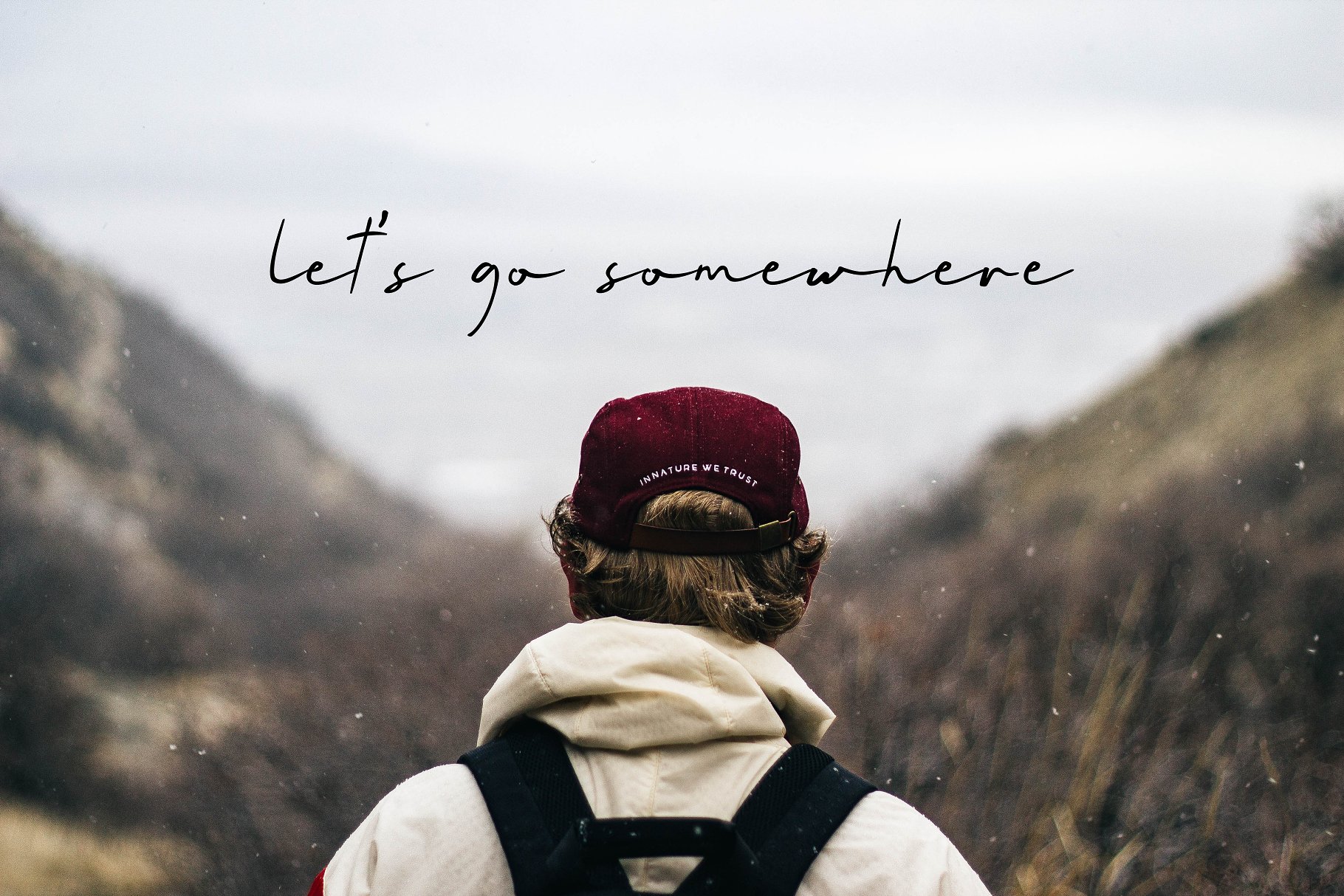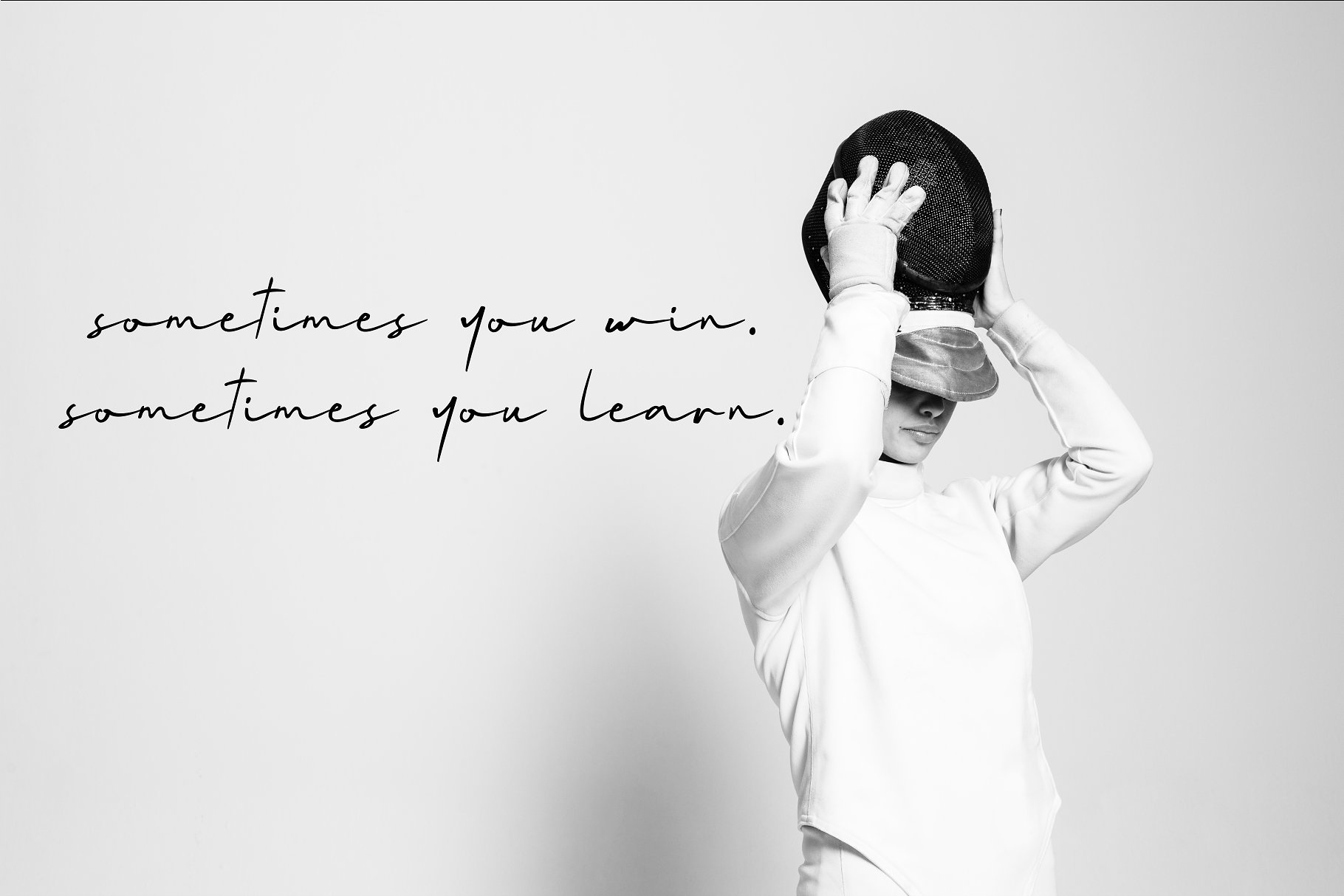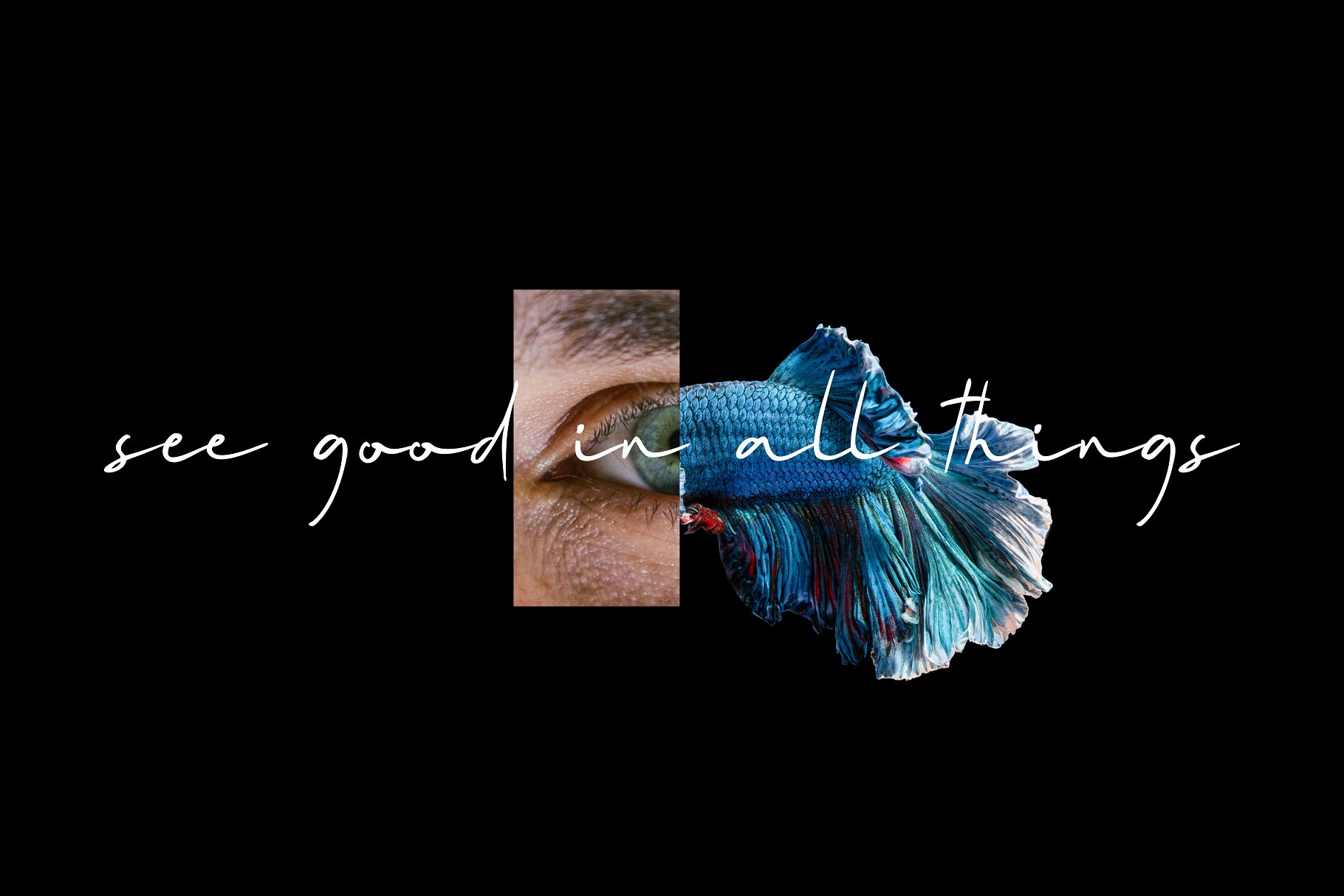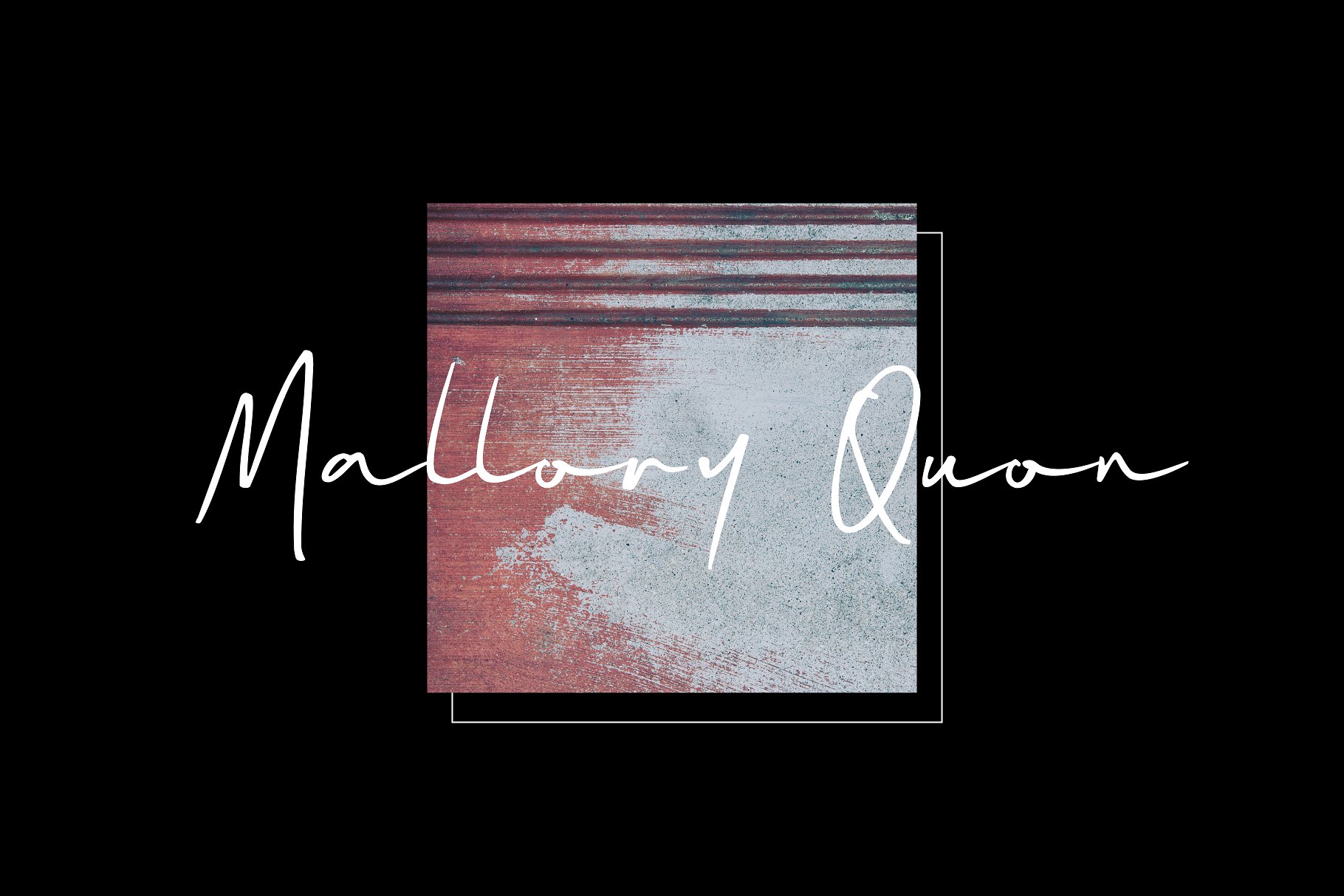
Mallory Quon Signature Font
Mallory Quon Font – is a signature script font created and shared by zuzulgo. Mallory Quon Signature Font – A casual font with modern Handwritten style, this font will perfect for many different project. Mallory Quon is perfect for many different project such as logos & branding, invitation, stationery, wedding designs, social media posts, advertisements, product packaging, product designs, label, photography, watermark, special events or anything.